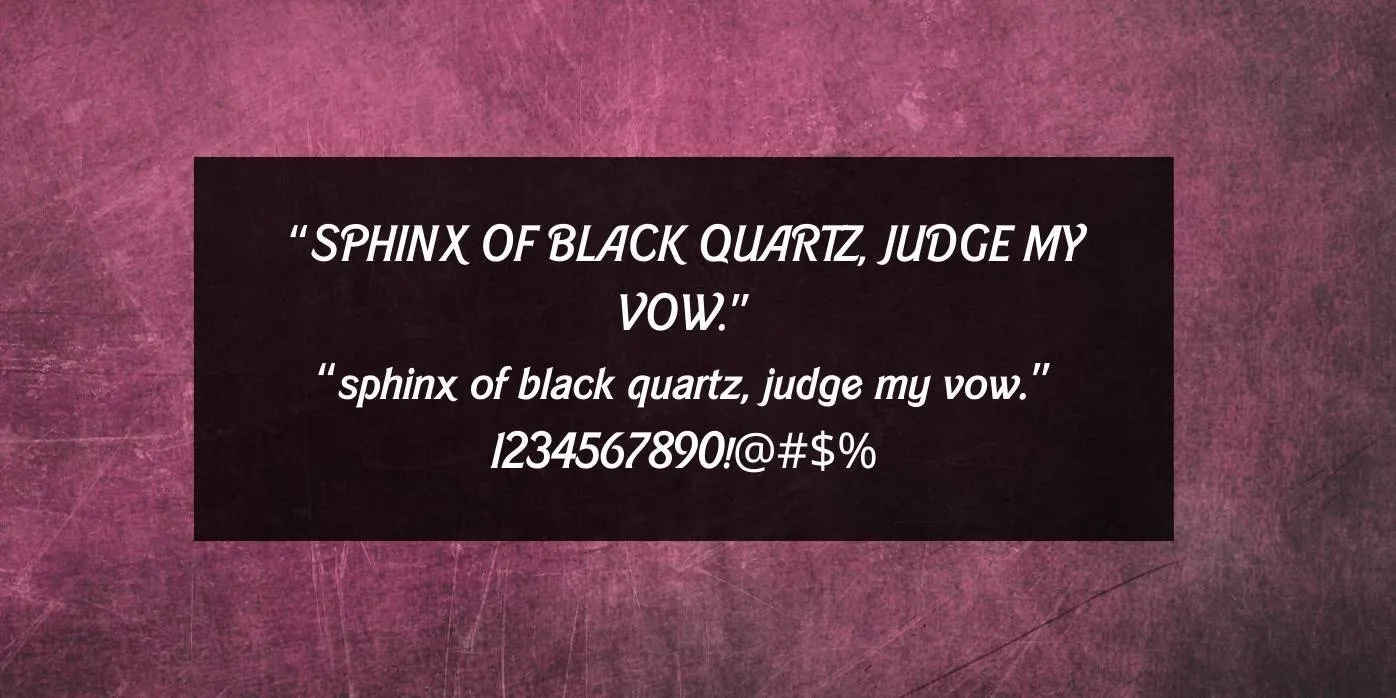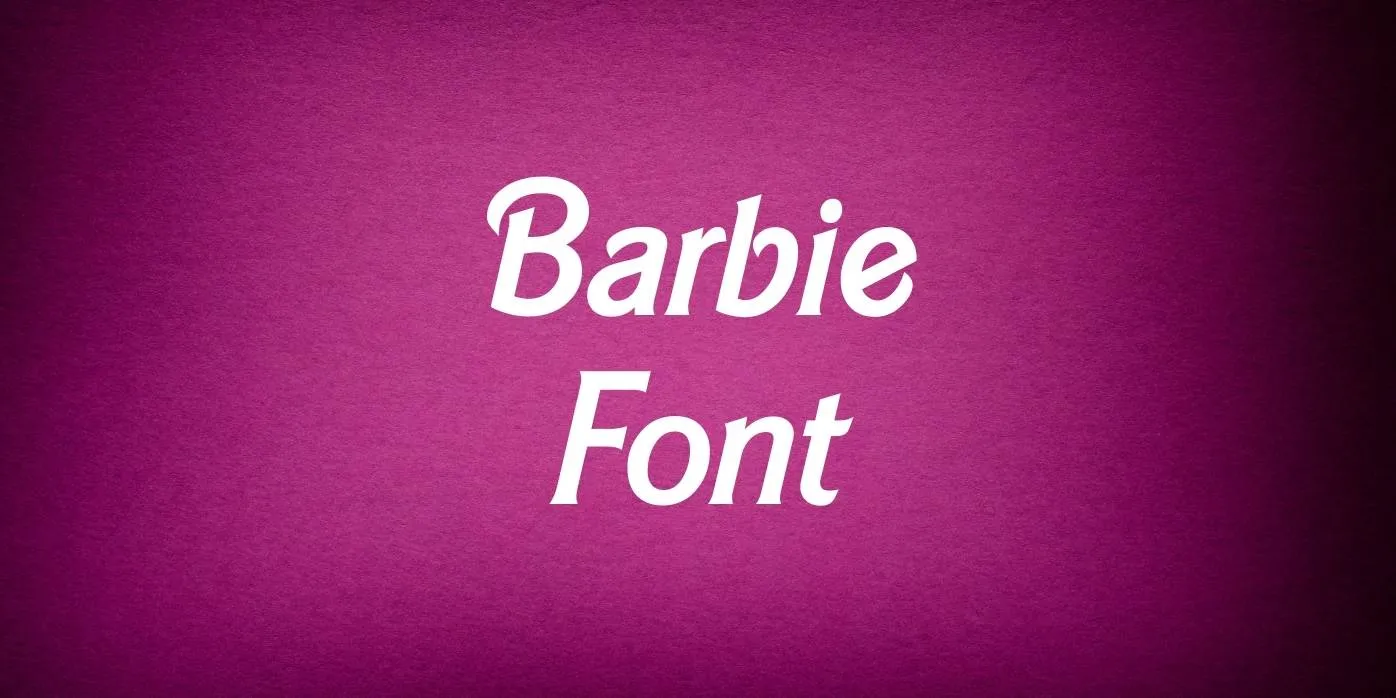
Barbie Font
Barbie Font is a very stylish typeface that belongs to the script font family. This classy typeface was designed by Mans Greback. This font has a very unique and stylish design that makes it stand out from the rest of the fonts in its family. The font is perfect for any girly or feminine project.
It is basically a fashion doll that was created by an American toy company. This company is founded in 1859. This font family is available in two special styles. Its similar script mt bold font is suitable for many plans.
Also, it consists of 200 classic characters. Its copy and paste function is best for various designs. It is best for use in Canva. The Barbie Font is a beautiful typeface that will add a touch of elegance to any project.
It features a unique and stylish design that is perfect for any girly or feminine project. This stunning font is sure to make your project stand out from the rest.